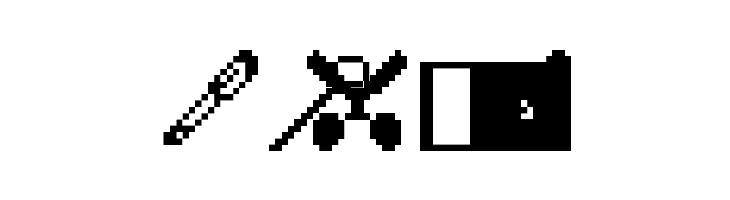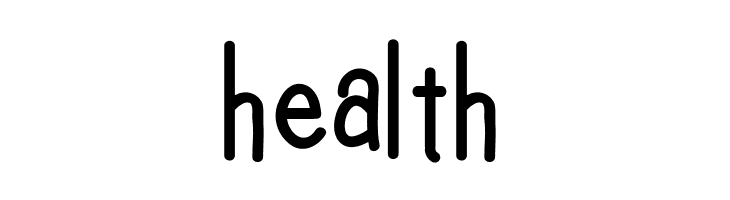
Pixelated icon and symbol set with a mechanical and abstract theme.
Pixel-based icon set inspired by early computer UI graphics.
A playful and modern sans-serif font with rounded edges and a slightly condensed style.